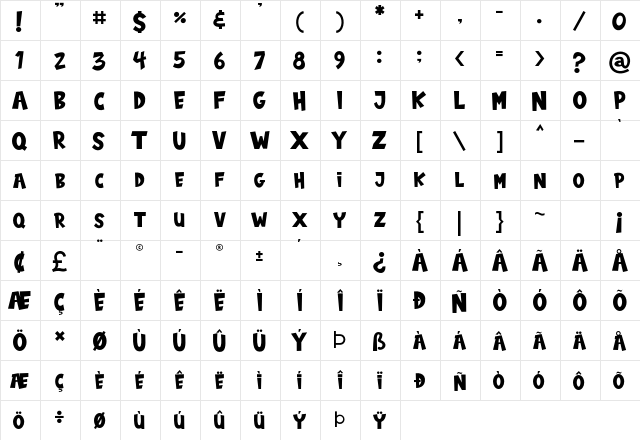
Baby Monsta Regular
| Designer | Fachranheit 2020 |
Design Context for Baby Monsta Typeface
Baby Monsta is a composed and adaptable typeface that performs quietly and consistently across a wide range of design contexts.